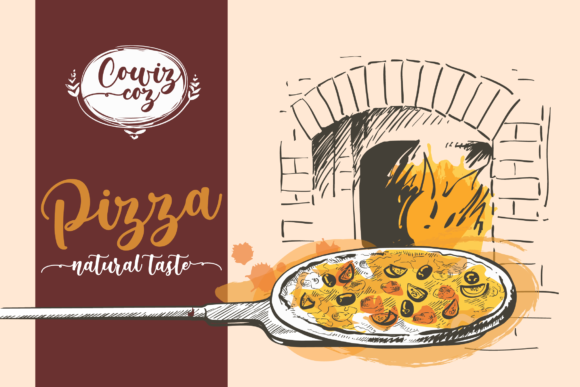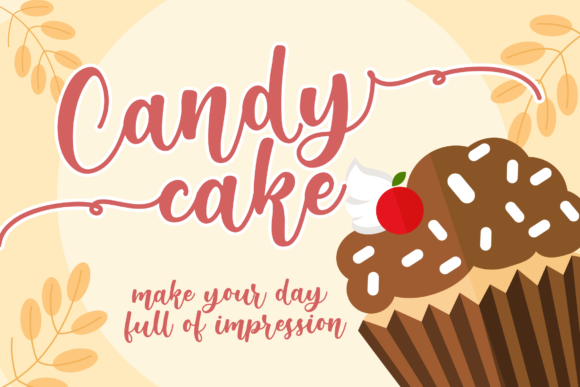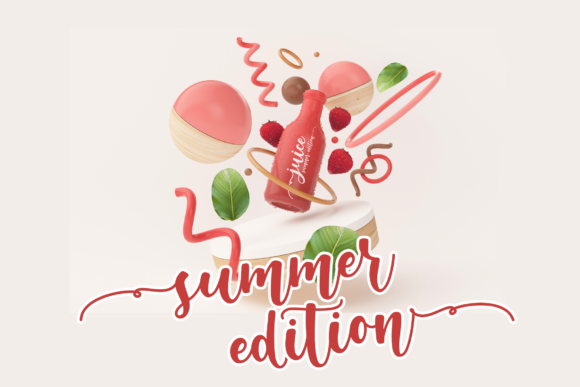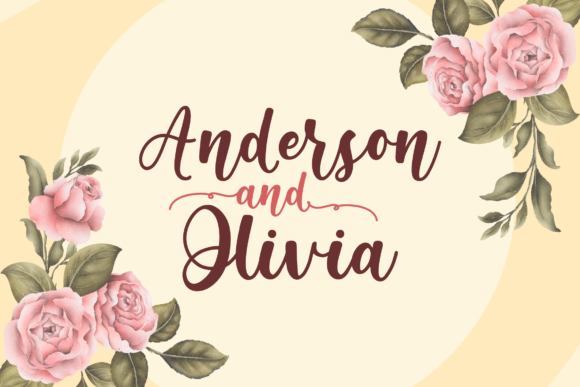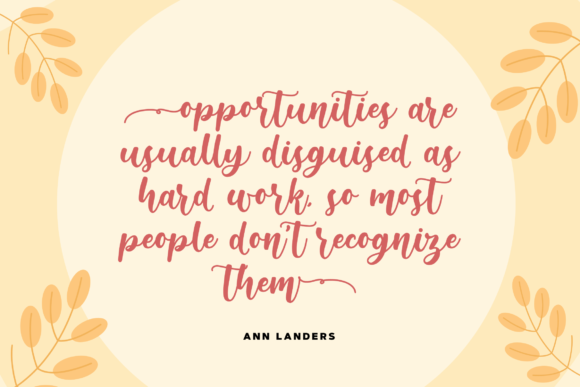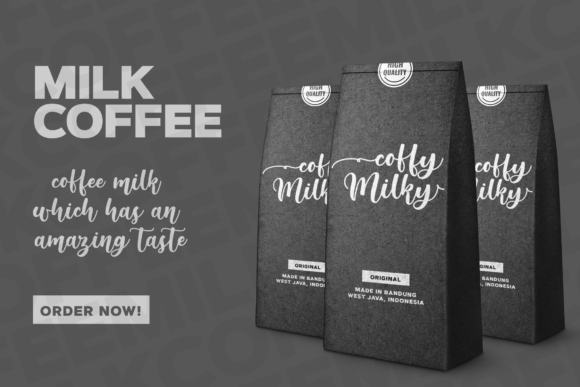
Brownies Cake Font: The Ultimate Choice for Romantic Designs
Are you a designer or crafter looking for a font that can add a touch of romance and elegance to your designs? Look no further than the Brownies Cake font. This incredibly distinct, delicate, and timeless handwritten font is perfect for creating stunning wedding invitations, thank you cards, quotes, greeting cards, logos, business cards, and more.
What Makes Brownies Cake Font So Special?
The Brownies Cake font is a unique and beautiful script font that is sure to capture the hearts of anyone who sees it. Its delicate and intricate strokes make it perfect for designs that require a romantic and whimsical touch. The font is highly versatile and can be used for a wide range of design projects, from wedding stationery to branding and packaging.
Characteristics of Brownies Cake Font
The Brownies Cake font has several characteristics that make it stand out from other fonts. Some of its key features include:
• Delicate strokes: The font features delicate and intricate strokes that give it a romantic and whimsical feel.
• Handwritten style: The font has a handwritten style that makes it perfect for designs that require a personal touch.
• Timeless look: The font has a timeless look that will never go out of style, making it a great investment for designers and crafters.
• Highly legible: Despite its delicate strokes, the font is highly legible and easy to read, making it perfect for body text and headings.
Uses of Brownies Cake Font
The Brownies Cake font is highly versatile and can be used for a wide range of design projects, including:
• Wedding stationery: The font is perfect for creating stunning wedding invitations, save the dates, and thank you cards.
• Greeting cards: The font can be used to create beautiful greeting cards for birthdays, anniversaries, and other special occasions.
• Branding and packaging: The font can be used for branding and packaging projects that require a touch of elegance and sophistication.
• Logos and business cards: The font can be used to create beautiful logos and business cards that make a lasting impression.
• Quotes and posters: The font can be used to create stunning quotes and posters that are perfect for social media and marketing campaigns.
Tips for Using Brownies Cake Font
Here are some tips for using the Brownies Cake font in your designs:
• Pair it with a sans-serif font: Pairing the Brownies Cake font with a sans-serif font can create a beautiful contrast and make your designs stand out.
• Use it for headings and titles: The font is perfect for headings and titles, but it can also be used for body text in smaller sizes.
• Experiment with colors: The font looks stunning in a variety of colors, so don’t be afraid to experiment and find the perfect color for your design.
• Use it consistently: To create a cohesive look, use the Brownies Cake font consistently throughout your design.
The Brownies Cake font is a beautiful and versatile script font that is perfect for designers and crafters who want to add a touch of romance and elegance to their designs. Its delicate strokes, handwritten style, and timeless look make it a great choice for a wide range of design projects. With its high legibility and versatility, the Brownies Cake font is sure to become a favorite in your design arsenal.
Overall, the Brownies Cake font is a stunning and elegant script font that is sure to make your designs stand out. Its unique characteristics, versatility, and timeless look make it a great investment for designers and crafters who want to create beautiful and romantic designs.